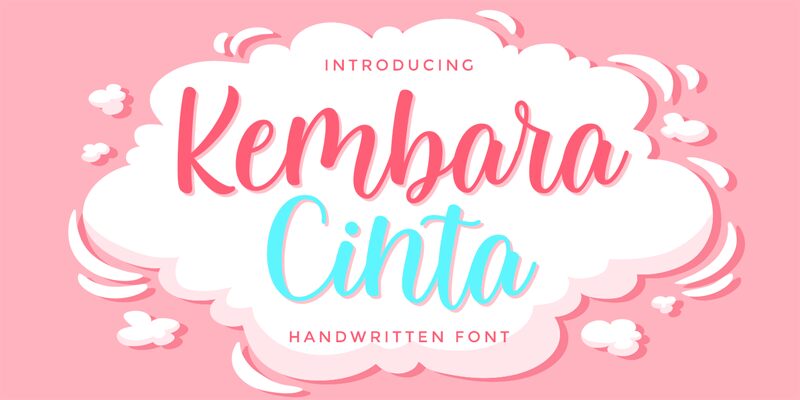
Kembara Cinta is a stunning calligraphy font designed by Fajar Gunawan. Its graceful curves and elegant strokes make it the perfect choice for wedding invitations, greeting cards, and other romantic projects. This semi-bold font features a medium width that allows for easy readability while retaining its artistic flair. Whether you're crafting a heartfelt letter or designing a logo for a luxury brand, Kembara Cinta is sure to impress with its timeless beauty. Add some love to your projects with Kembara Cinta - the calligraphy font that captures the essence of romance.
Kembara Cinta